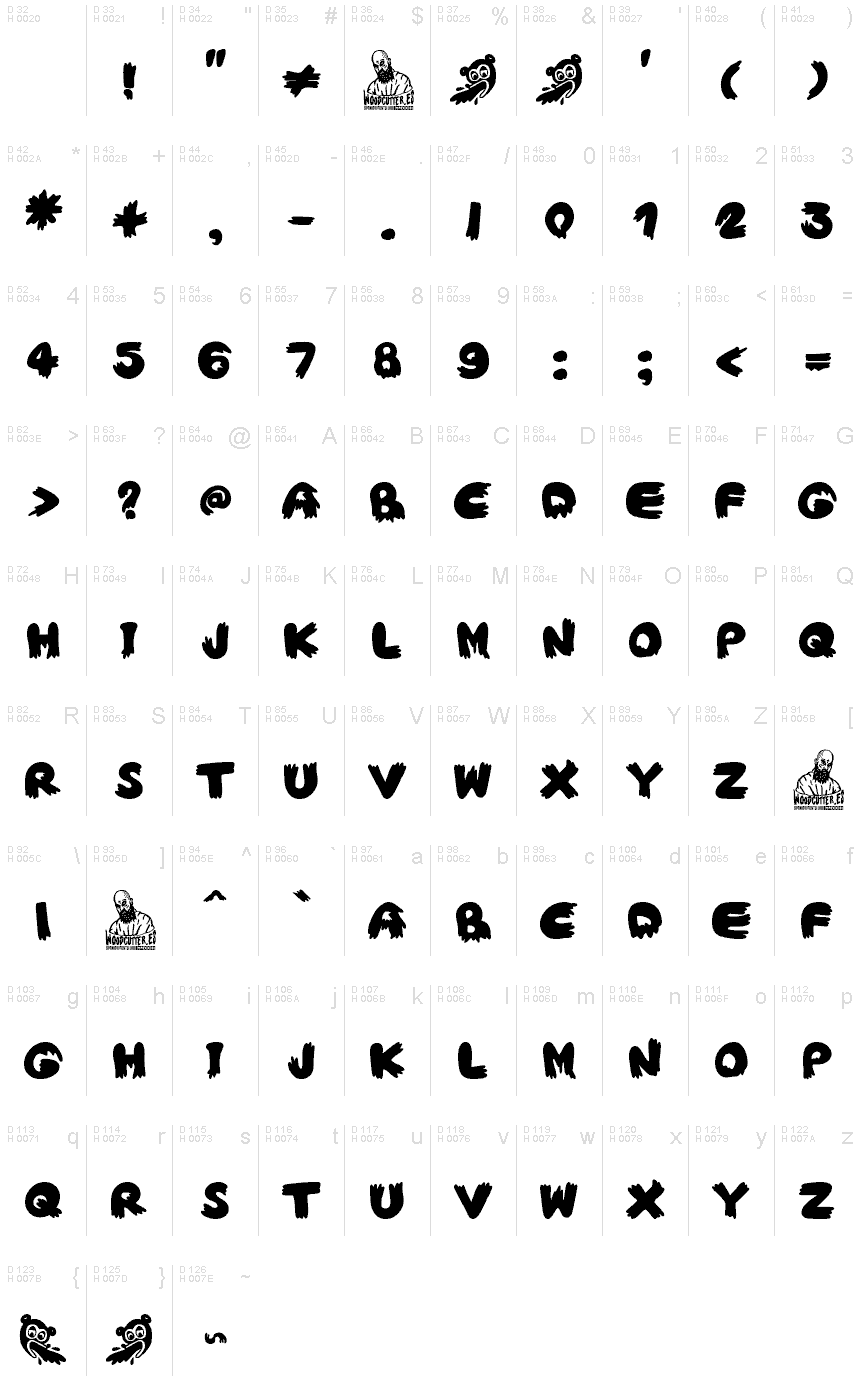
Vómito Cartoon
Vómito is a free display bold typeface designed by Woodcutter Manero. The font was inspired by the style of brush lettering, resulting in an overall quirky and creative aesthetic.
Vómito can be used for an extraordinary range of applications, such as posters, flyers, cards, and other designs which benefit from a fluid style and eye-catching look. Vómito is a wonderful choice to create Halloween or carnival inspired designs, graphic novel titles, or for an original branding design and creative projects.